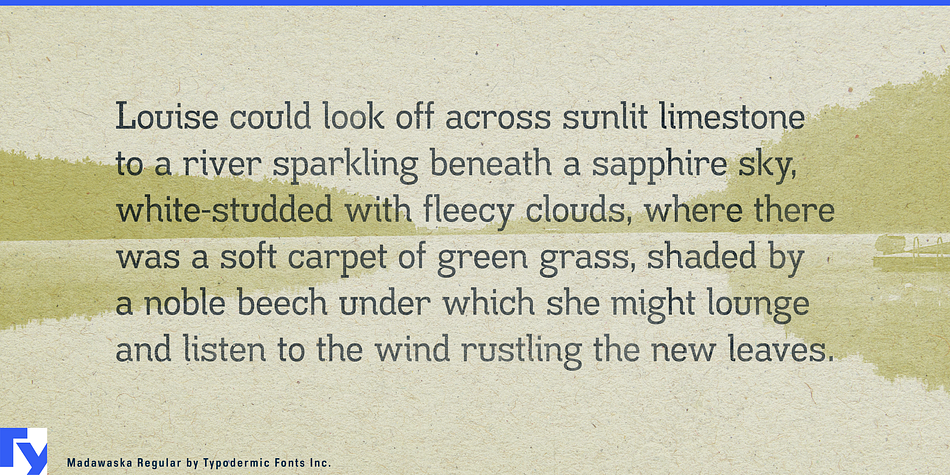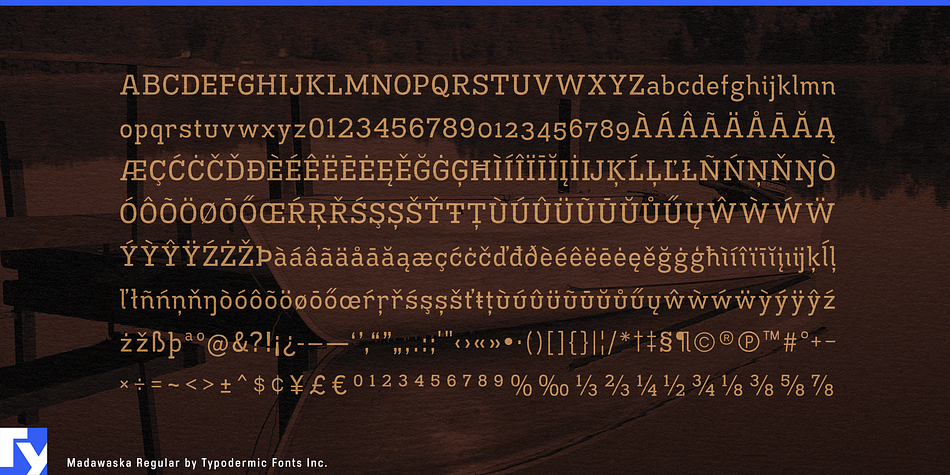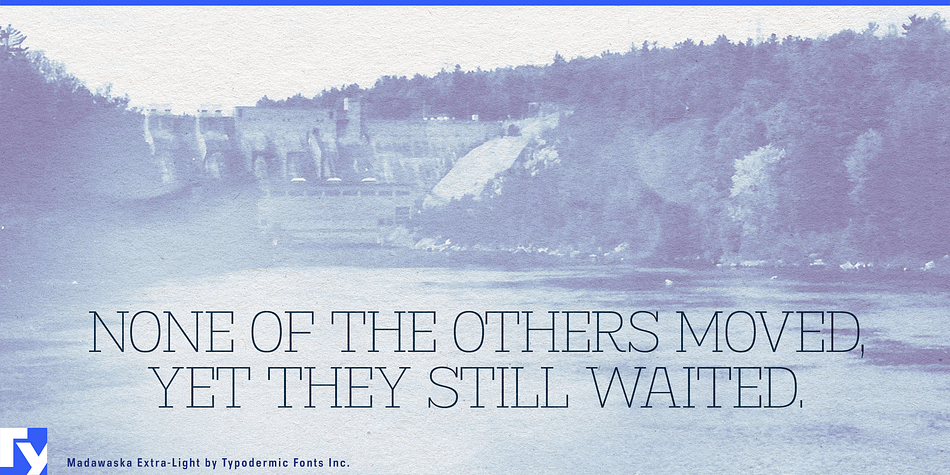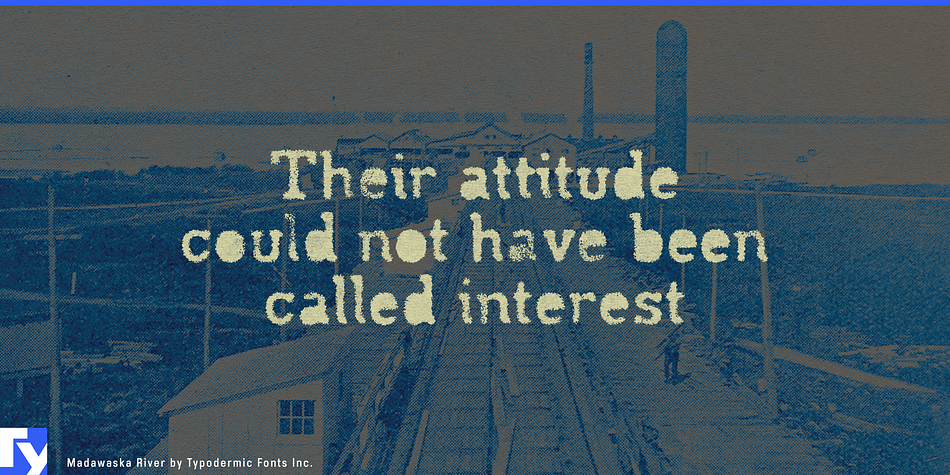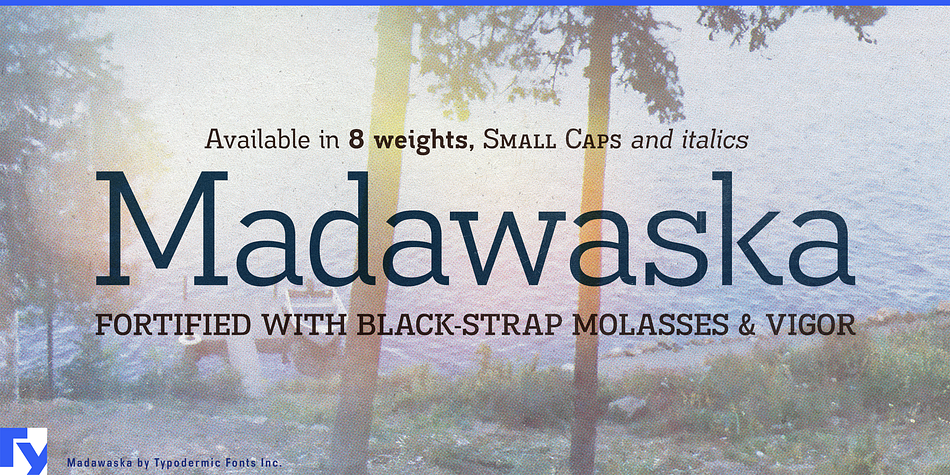
Madawaska is a display slab, grunge and slab serif font family. This typeface has thirty-four styles and was published by Typodermic Fonts Inc.
Madawaska is a classic slab-serif typeface from Canada. Allow Madawaska to lend your message a stocky authority and a distinguished personality. It comes in eight hefty weights and italics. For easy web/application deployment, sturdy small-cap styles are provided. Madawaska Jeans and Madawaska River are two scuzzy affect styles with custom textured OpenType ligatures. Most Latin-based European writing systems are supported, including the following languages. Afaan Oromo, Afar, Afrikaans, Albanian, Alsatian, Aromanian, Aymara, Bashkir (Latin), Basque, Belarusian (Latin), Bemba, Bikol, Bosnian, Breton, Cape Verdean, Creole, Catalan, Cebuano, Chamorro, Chavacano, Chichewa, Crimean Tatar (Latin), Croatian, Czech, Danish, Dawan, Dholuo, Dutch, English, Estonian, Faroese, Fijian, Filipino, Finnish, French, Frisian, Friulian, Gagauz (Latin), Galician, Ganda, Genoese, German, Greenlandic, Guadeloupean Creole, Haitian Creole, Hawaiian, Hiligaynon, Hungarian, Icelandic, Ilocano, Indonesian, Irish, Italian, Jamaican, Kaqchikel, Karakalpak (Latin), Kashubian, Kikongo, Kinyarwanda, Kirundi, Kurdish (Latin), Latvian, Lithuanian, Lombard, Low Saxon, Luxembourgish, Maasai, Makhuwa, Malay, Maltese, Māori, Moldovan, Montenegrin, Ndebele, Neapolitan, Norwegian, Novial, Occitan, Ossetian (Latin), Papiamento, Piedmontese, Polish, Portuguese, Quechua, Rarotongan, Romanian, Romansh, Sami, Sango, Saramaccan, Sardinian, Scottish Gaelic, Serbian (Latin), Shona, Sicilian, Silesian, Slovak, Slovenian, Somali, Sorbian, Sotho, Spanish, Swahili, Swazi, Swedish, Tagalog, Tahitian, Tetum, Tongan, Tshiluba, Tsonga, Tswana, Tumbuka, Turkish, Turkmen (Latin), Tuvaluan, Uzbek (Latin), Venetian, Vepsian, Võro, Walloon, Waray-Waray, Wayuu, Welsh, Wolof, Xhosa, Yapese, Zapotec Zulu and Zuni.